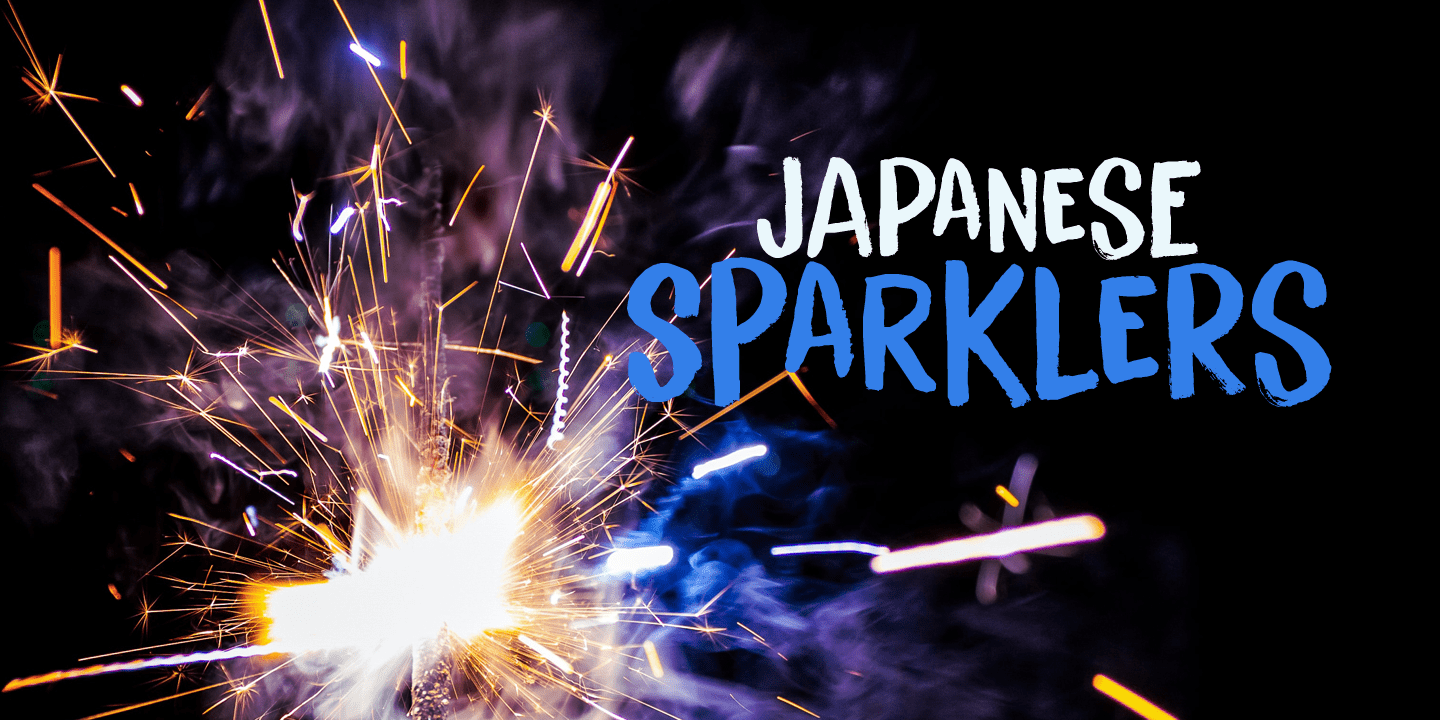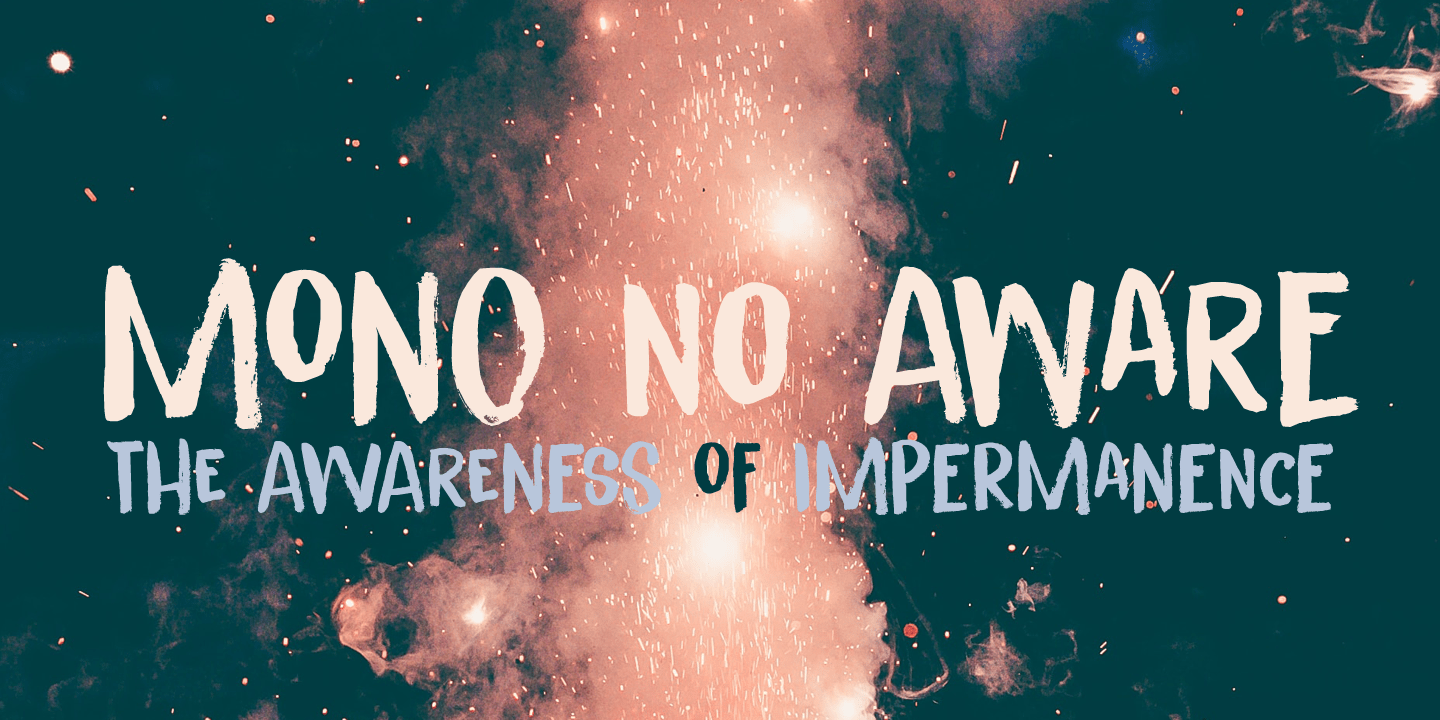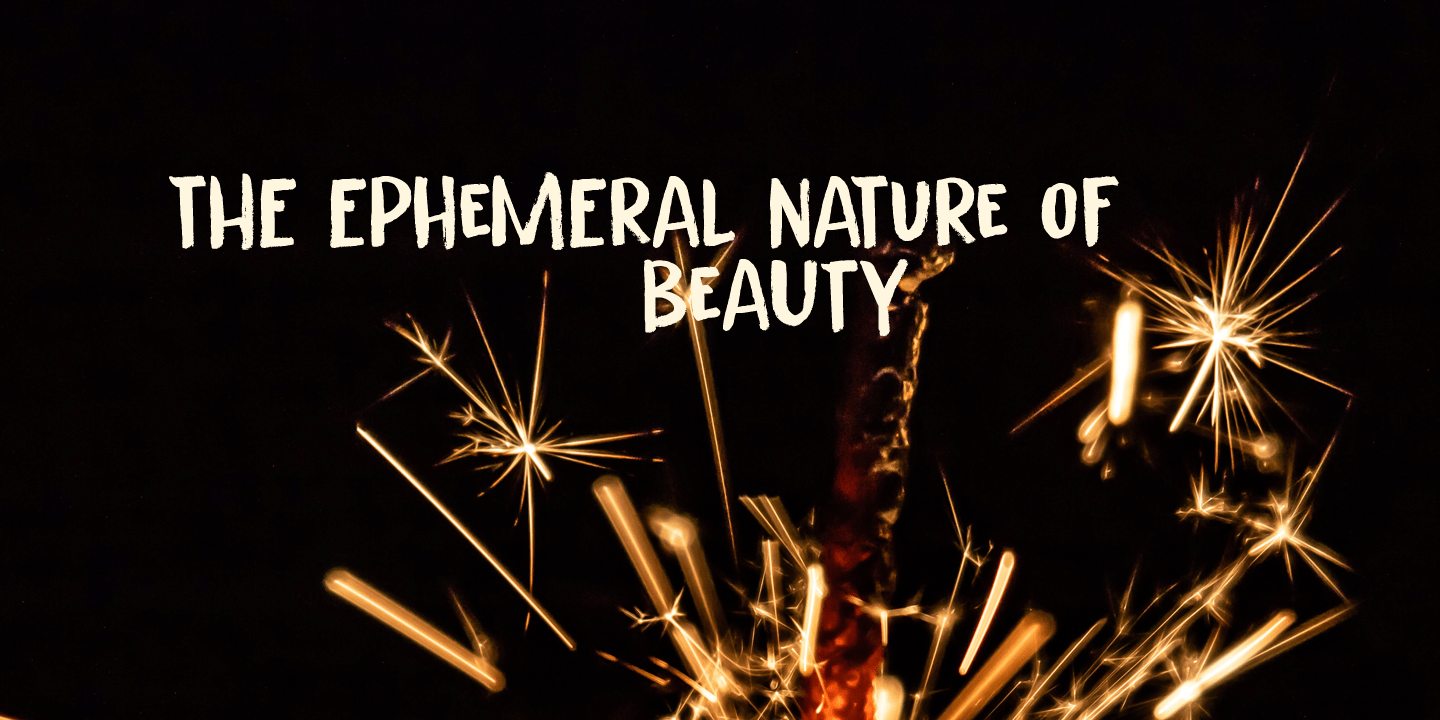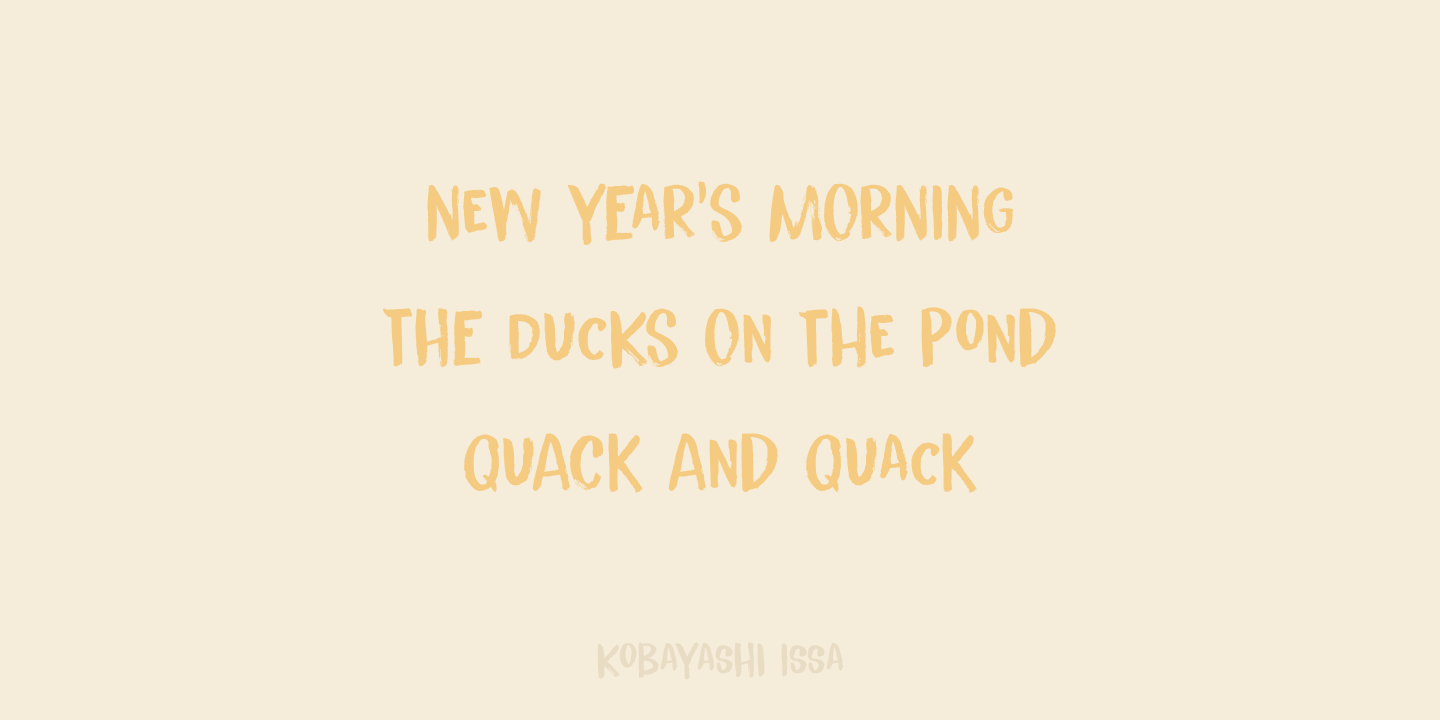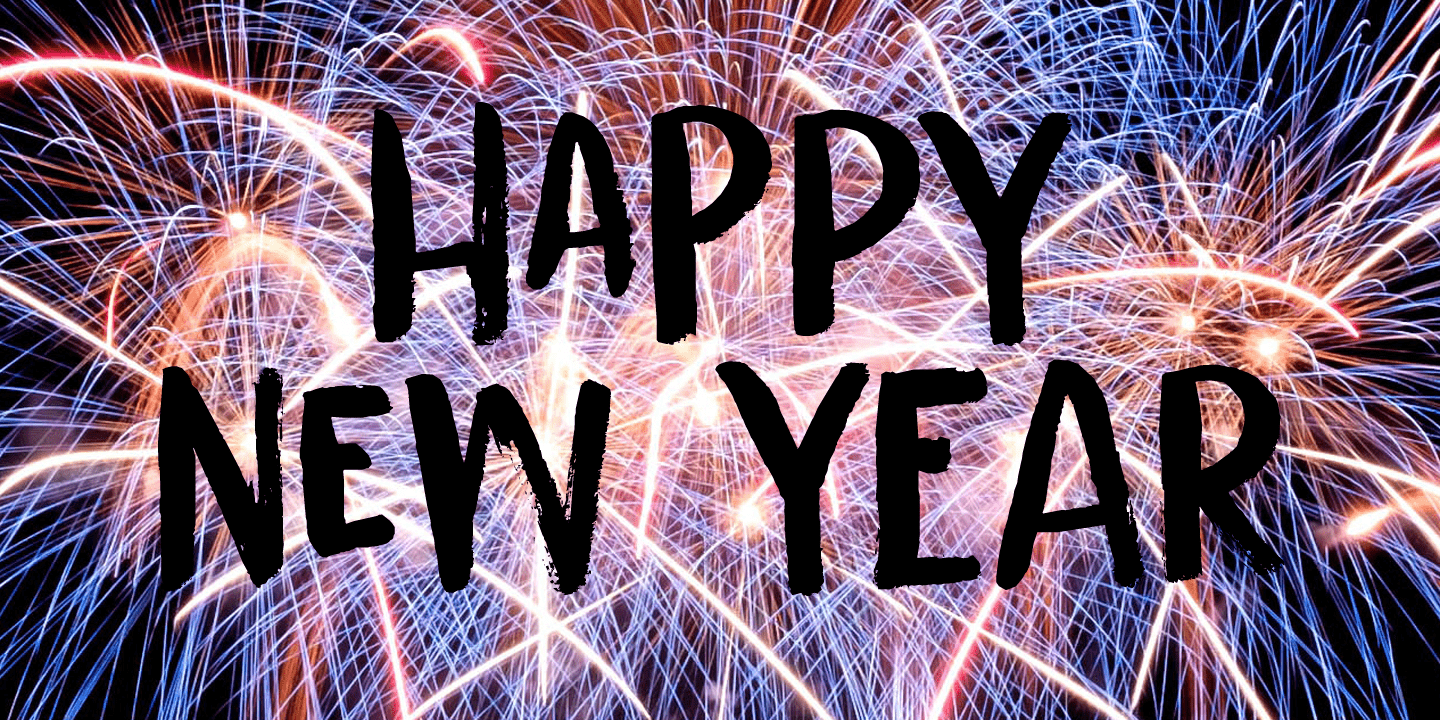
Senko Hanabi
Senko Hanabi (???? - Japanese: incense-stick fireworks) is a type of Japanese sparkler. These traditional sparklers are said to evoke ?mono no aware? - ?an empathy toward things?; the flash of sadness when reminded of the fleeting nature of life.
I am always a bit melancholic this time of the year, so when I created this font, I wanted to give it a suitable name.
Senko Hanabi was made using a brush and Chinese ink. It is a beautiful font, which comes with stylistic alternates, discretionary ligatures and a sparkling amount of diacritics.